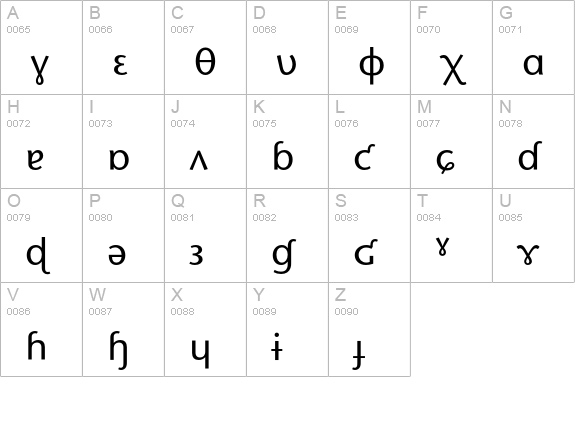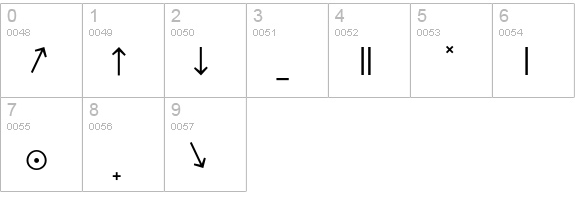
StoneSansPhonEF-Med Font Details
StoneSansPhonEF-Med is a versatile and modern font that exudes a sense of sophistication and elegance. With its clean lines and balanced proportions, this typeface is perfect for a wide range of design projects, from branding to editorial layouts. The medium weight of the font strikes the perfect balance between readability and impact, making it ideal for both headlines and body text. One of the standout features of StoneSansPhonEF-Med is that it is available for free download at FontsMarket.com. This means that designers and creatives can easily access this high-quality font without any cost, allowing them to elevate their designs without breaking the bank. Whether you're working on a print project or a digital campaign, StoneSansPhonEF-Med is a reliable choice that will add a touch of sophistication to any design.